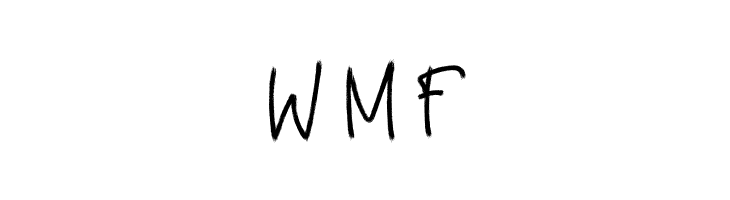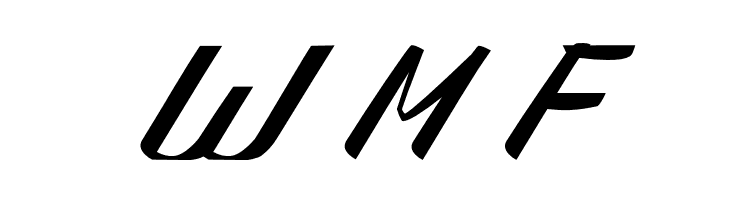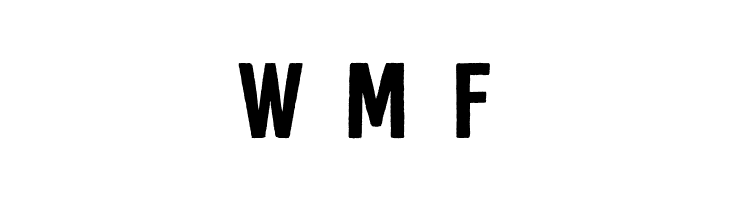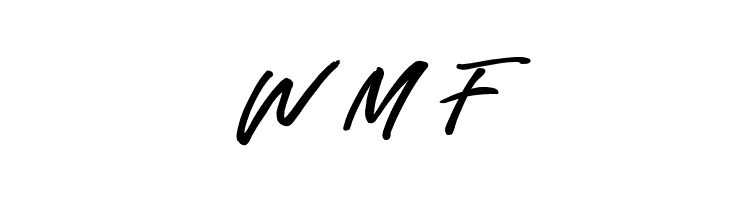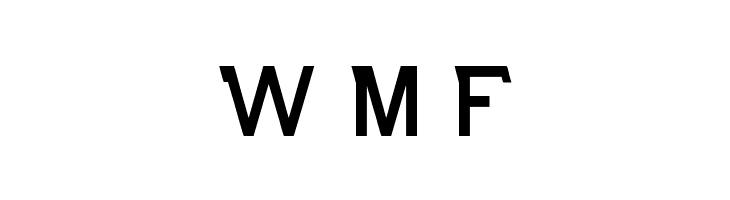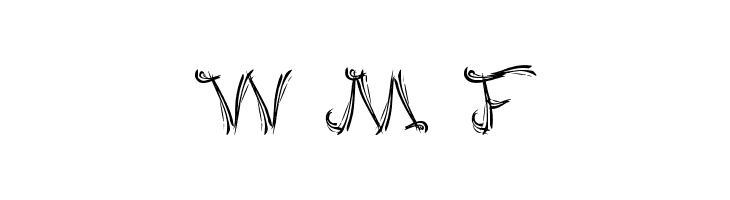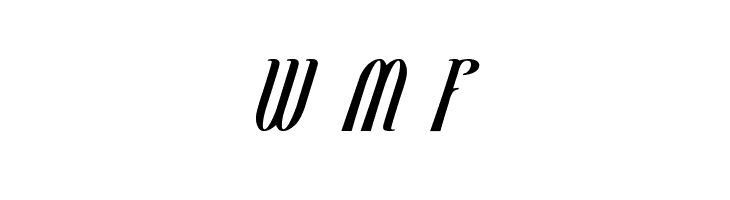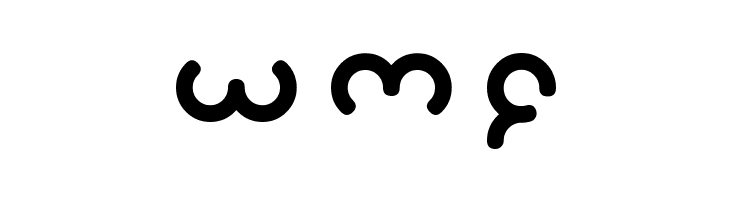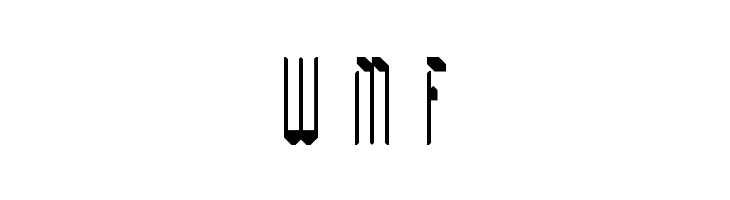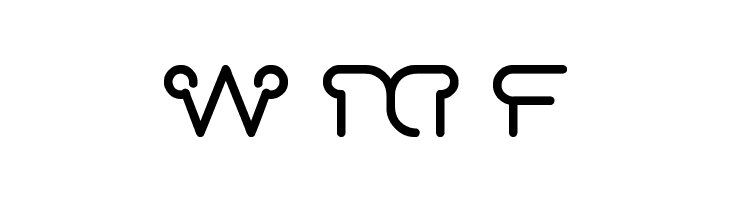
A futuristic, geometric font with a sleek and modern design.
A bold, geometric font with a modern and impactful design.
A playful, handwritten font with dynamic strokes and a casual appearance.
A dynamic, angular font with a modern, energetic style.
A modern, angular font with a futuristic and dynamic style.
A bold, angular font inspired by Japanese calligraphy with a modern edge.
A bold, playful font with rounded, decorative characters.
A playful, handwritten font with smooth, rounded edges and a casual style.
A playful, decorative font with a textured, hand-drawn style.
A playful, bold font with rounded edges and a friendly appearance.
A playful, sausage-like font with rounded, tubular shapes.
A whimsical, flowing font with interconnected strokes and a playful, artistic style.
An elegant and flowing script font with intricate loops and swashes.
A playful and whimsical font with bold, slender strokes and decorative elements.
A jagged, eerie font ideal for horror themes and Halloween designs.
A whimsical and eerie font with elongated, narrow strokes.
A bold, geometric font with a futuristic and industrial aesthetic.
A futuristic, geometric font with bold, interconnected lines and rounded corners.
A bold, vintage-inspired font with strong serifs and a modern twist.
A modern, playful font with rounded edges and continuous line style.
A playful, hand-drawn font with irregular strokes and a whimsical style.
A playful, flowing script font with smooth, continuous strokes.
A bold, geometric font with a futuristic and dynamic style.
A playful, casual handwritten font with smooth curves and a friendly appearance.
A bold, cursive script font with a fluid, handwritten style.
A cursive, handwritten font with elegant curves and a modern touch.
A whimsical font with intricate spiral designs and thin lines.
Bold, blocky font with a strong, modern presence.
A dynamic and elegant script font with a lively, flowing style.
An artistic and whimsical font with flowing lines and decorative accents.
A bold, futuristic font with geometric shapes and dynamic style.
A script representing the Cherokee syllabary with rounded, uniform characters.
A decorative, brush-stroke font with an artistic and playful style.
A bold, slanted script font with high contrast and fluid connections.